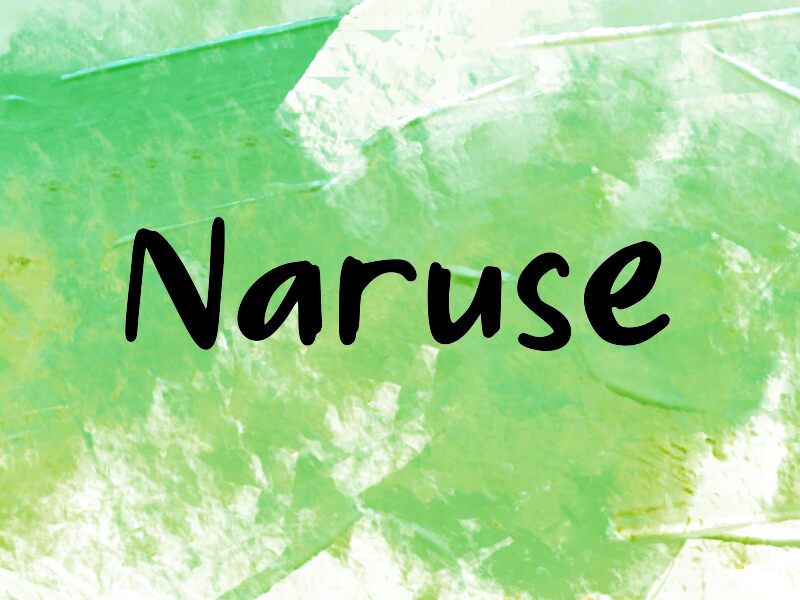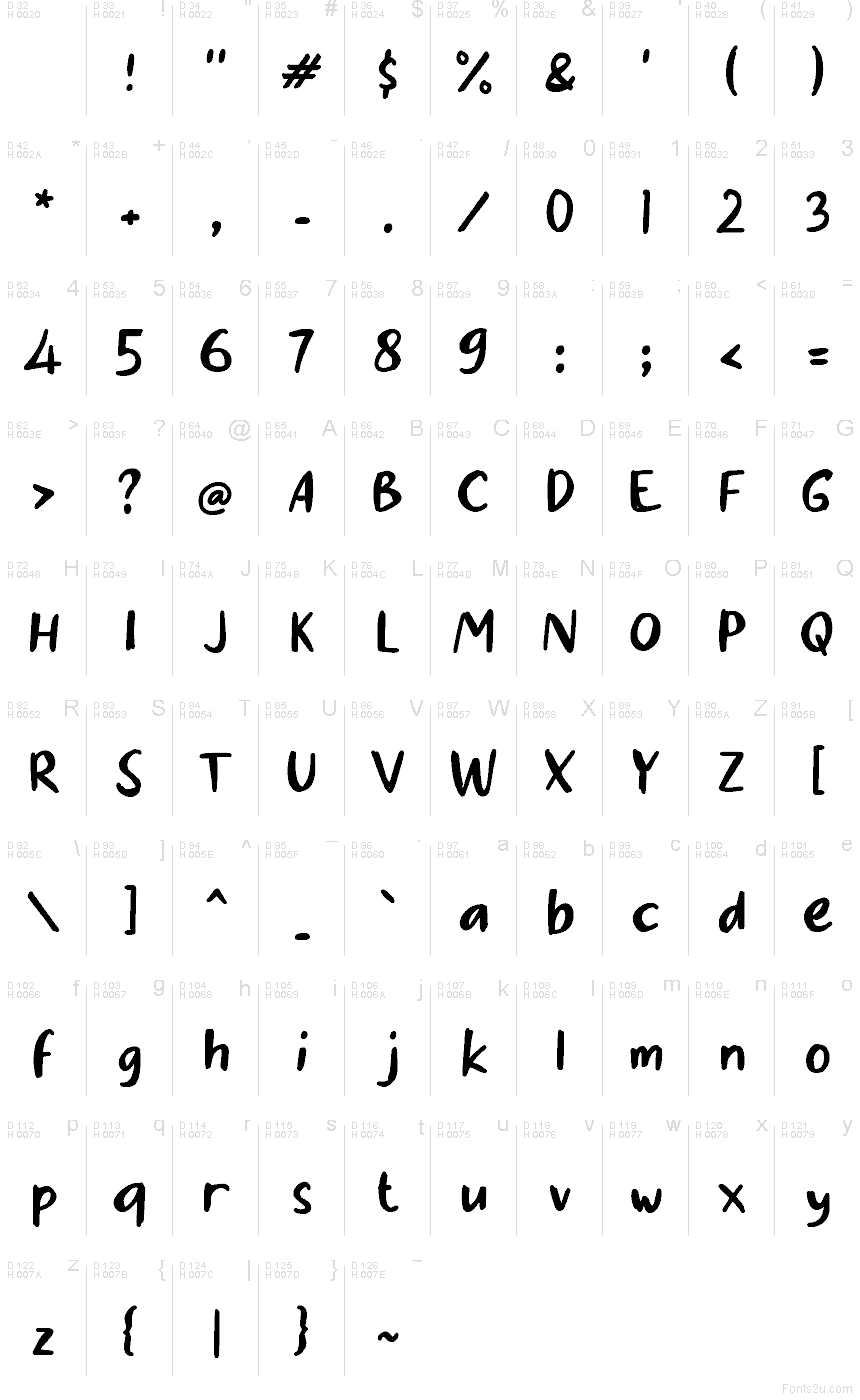
Naruse
Naruse font by wepfont.com is a free handwritten font that captures the feel of quick, confident brush pen notes without sacrificing clarity. Its strokes are bold yet rounded, with just enough wobble and ink-like texture to feel human, not messy. Letters connect visually from one to the next, creating an easy, flowing rhythm that stays readable even at smaller sizes.
Using Naruse, you can add warmth to posters, quote graphics, product packaging, journaling layouts, social media posts, and friendly branding. This free font works beautifully anywhere you need handwriting that feels casual but dependable. Try pairing Naruse with a clean sans serif for body text, letting Naruse handle headlines, names, and short phrases that need personality and a personal touch.